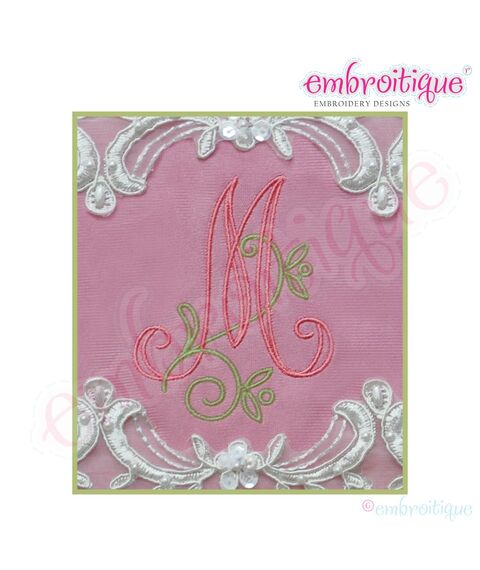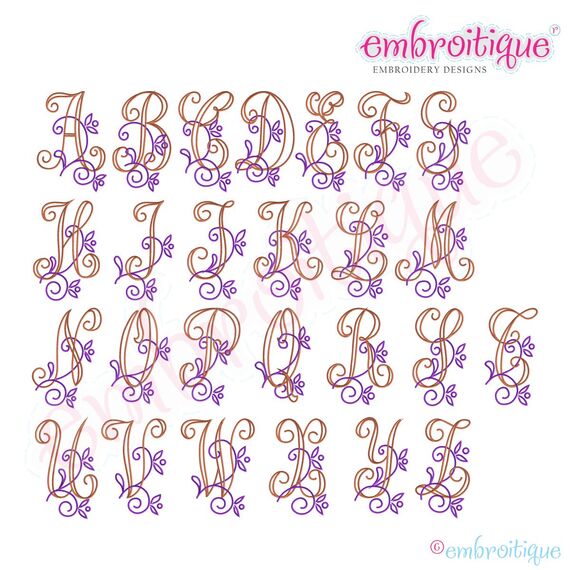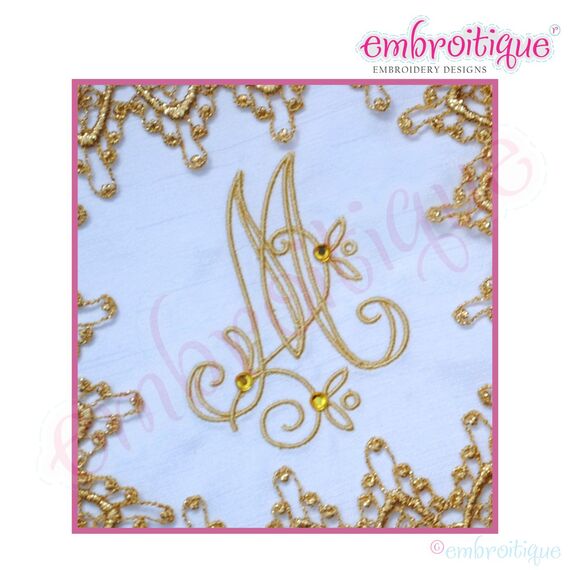
Vintage Floral Alphabet Monogram Font Set - 2", 2.5", 3"
Each letter is an individual file. Add these letters to simple, complimentary fonts or use them to create beautiful monograms!
A-Z, Upper-case only